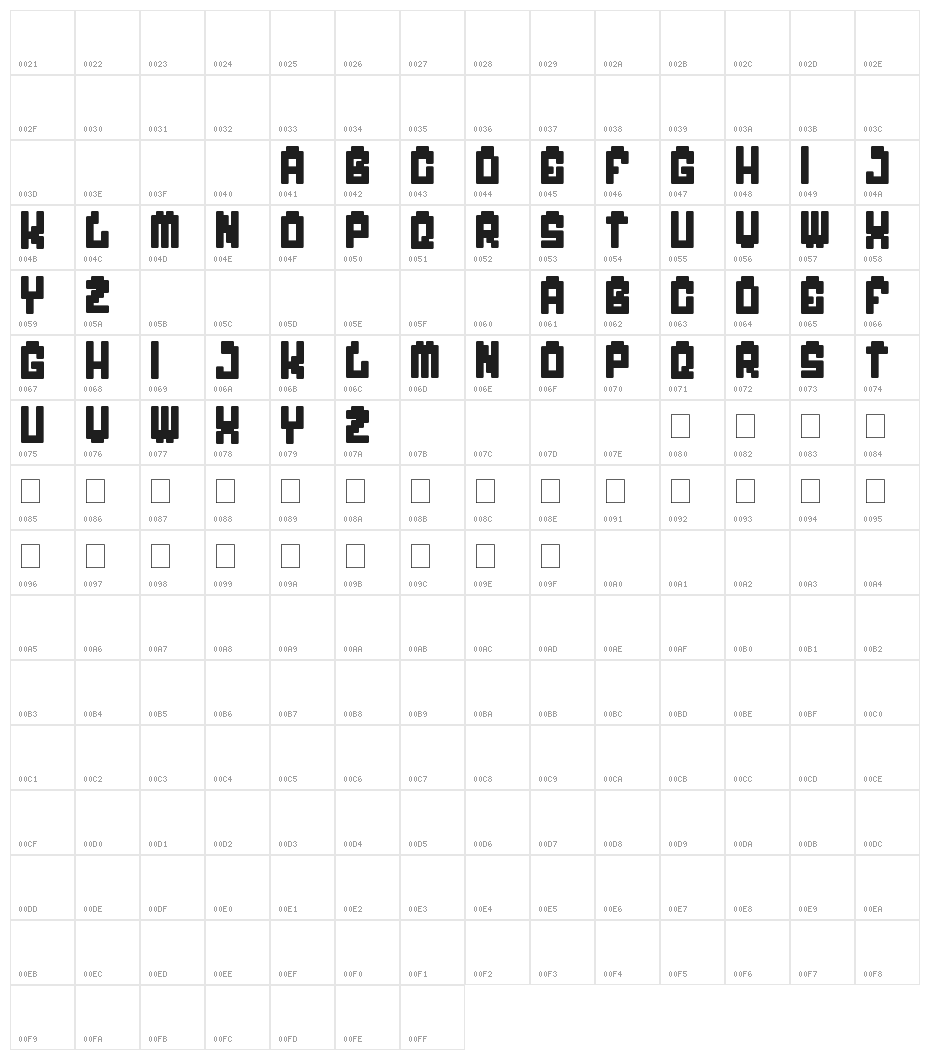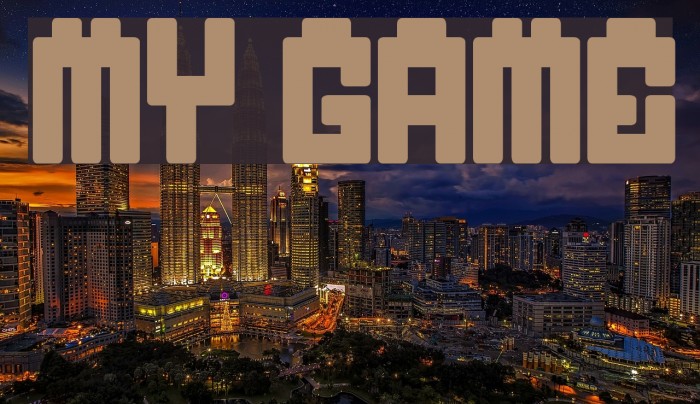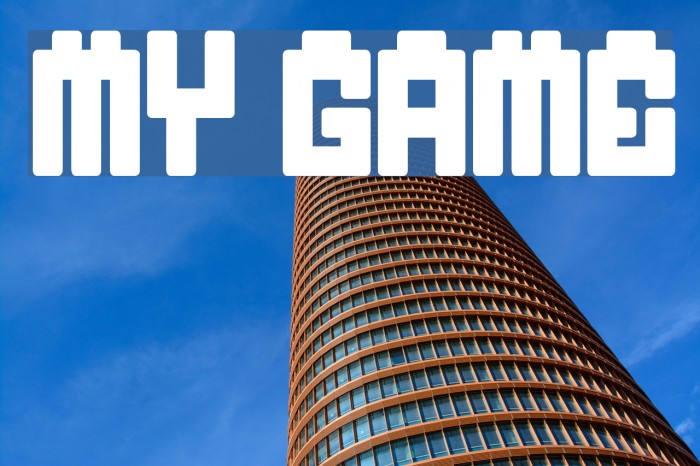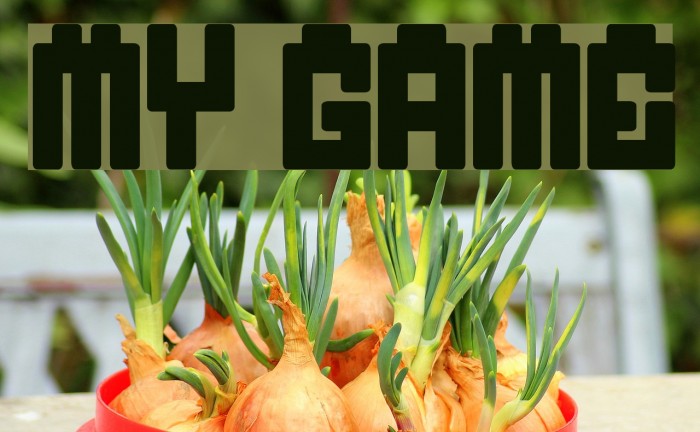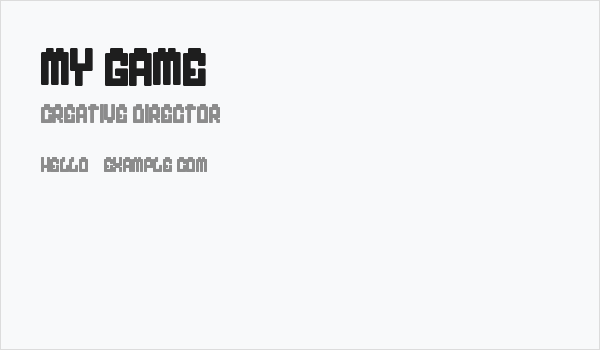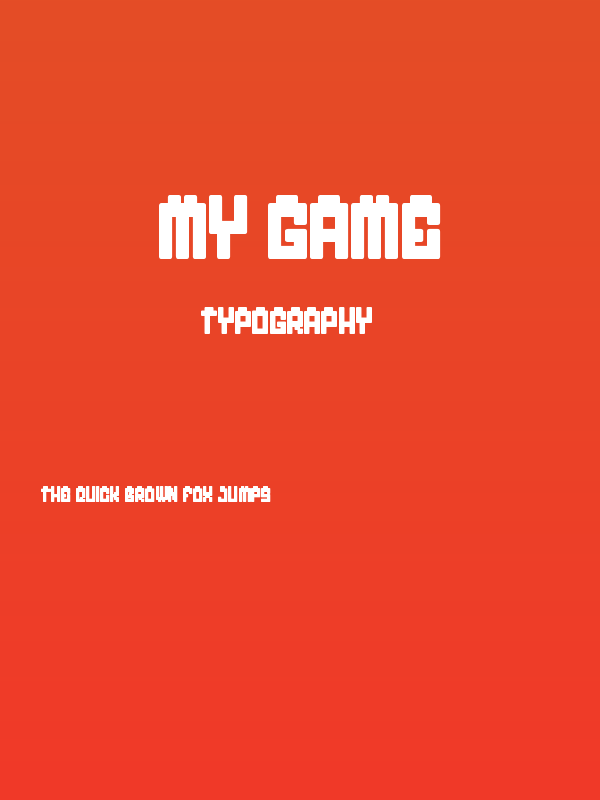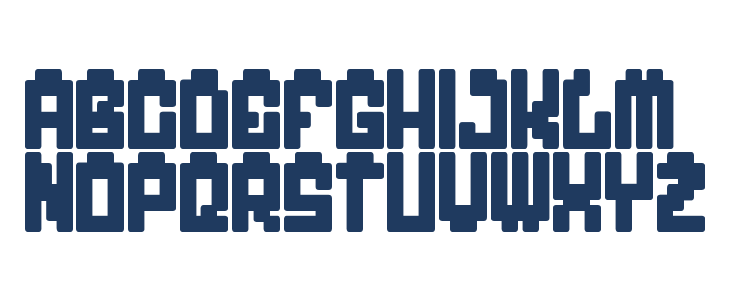
my game Font
my game Description
This font features a bold, blocky design with a pixelated aesthetic reminiscent of retro video games. Each character is constructed with a uniform thickness, creating a cohesive and sturdy appearance. The geometric shapes and sharp angles give it a modern yet nostalgic feel, making it ideal for projects that aim to capture a sense of fun and playfulness. The uppercase letters are particularly striking, with a consistent height and width that enhances readability. This font is perfect for capturing attention and conveying a strong, impactful message.
| Proposed Projects | Ideal for video game titles, retro-themed posters, digital art, and playful branding. |